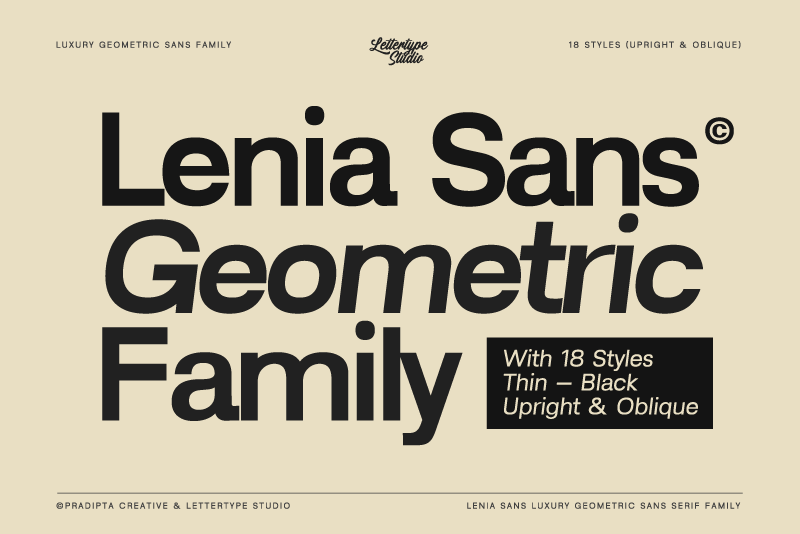
Lenia Sans Font
About Lenia Sans
Lenia Sans is a modern and versatile sans-serif geometric typeface that delivers clean lines and timeless appeal, simplicity, and natural while exuding a strong personality with refined proportions. Designed for readability and versatility, this font family balances clean, geometric precision with the warmth and flexibility of modern design.
There is a wide range of weights, from thin to black, including 18 weights and oblique style. OpenType features include stylistic alternates (a, r, g, & y), figure variations (superiors, inferiors, fractions, circled numerators, standard ligatures), arrows, and broad Latin language support.
These modern geometric fonts are crafted with impeccable legibility and sleek, seamless aesthetic appeal. They are clean, modern, and versatile options for any project, including fashion, print design, social media, creatives, branding, posters, UI/UX, web typography, packaging, or editorial design. They will elevate your creative projects and keep your designs on-trend.